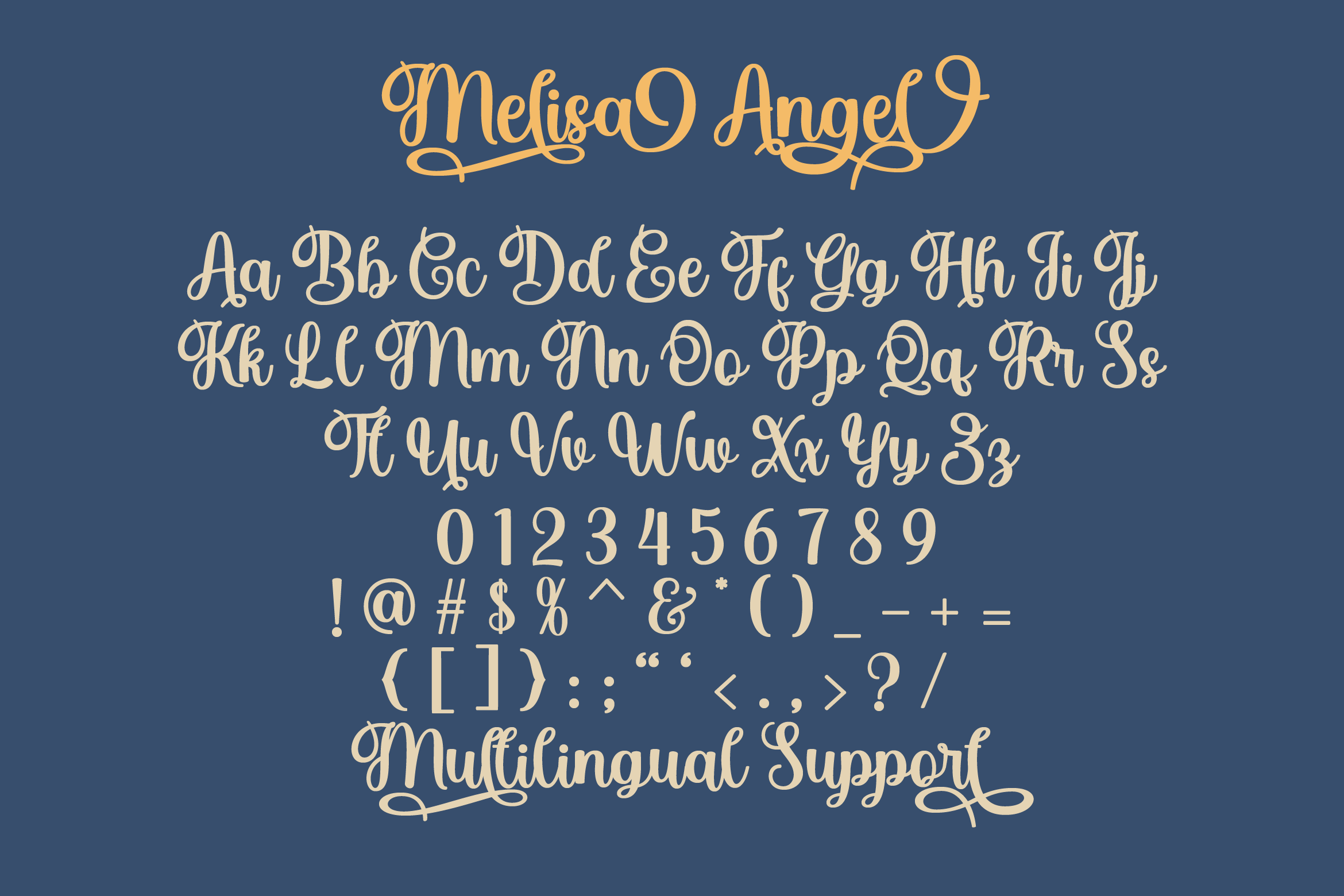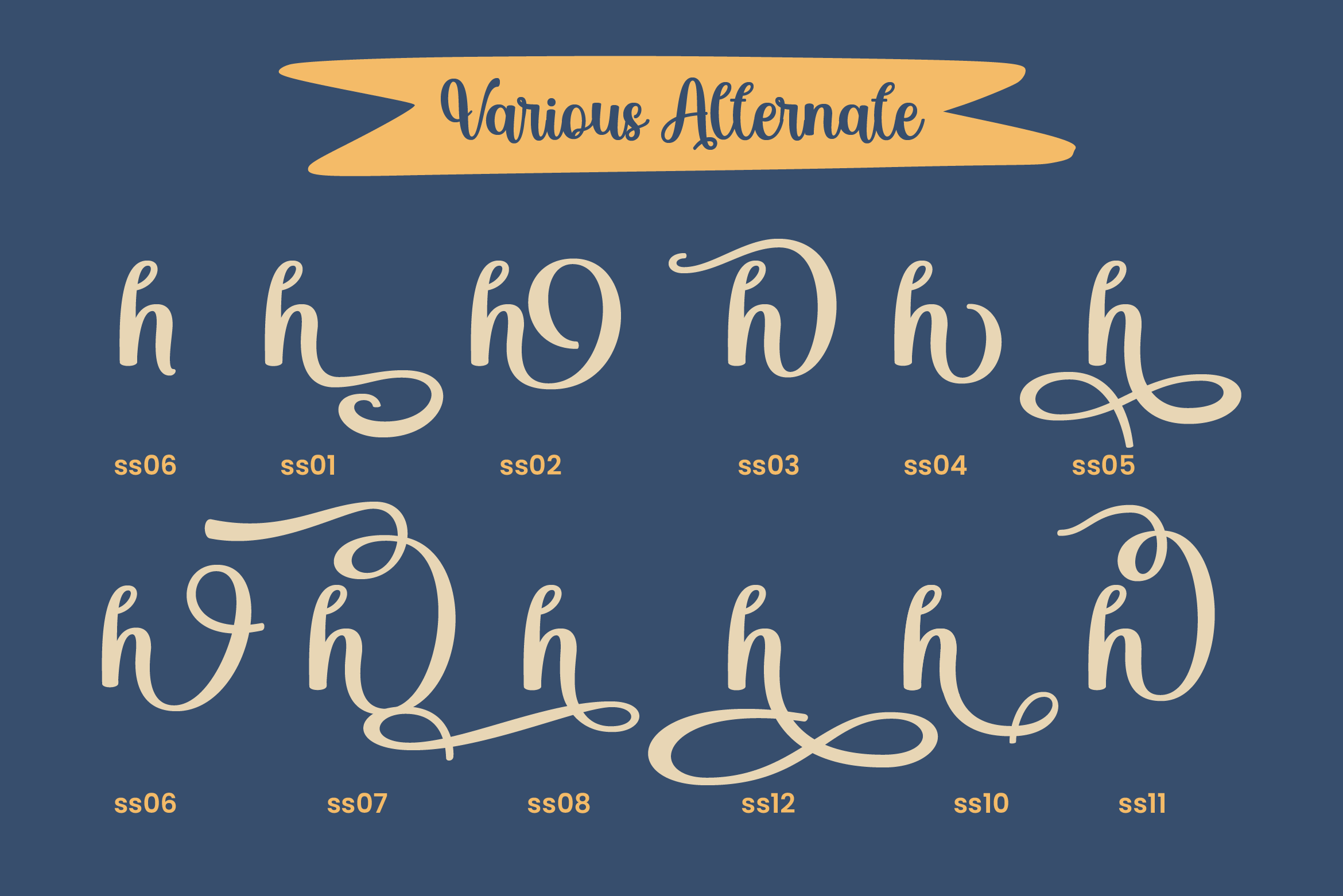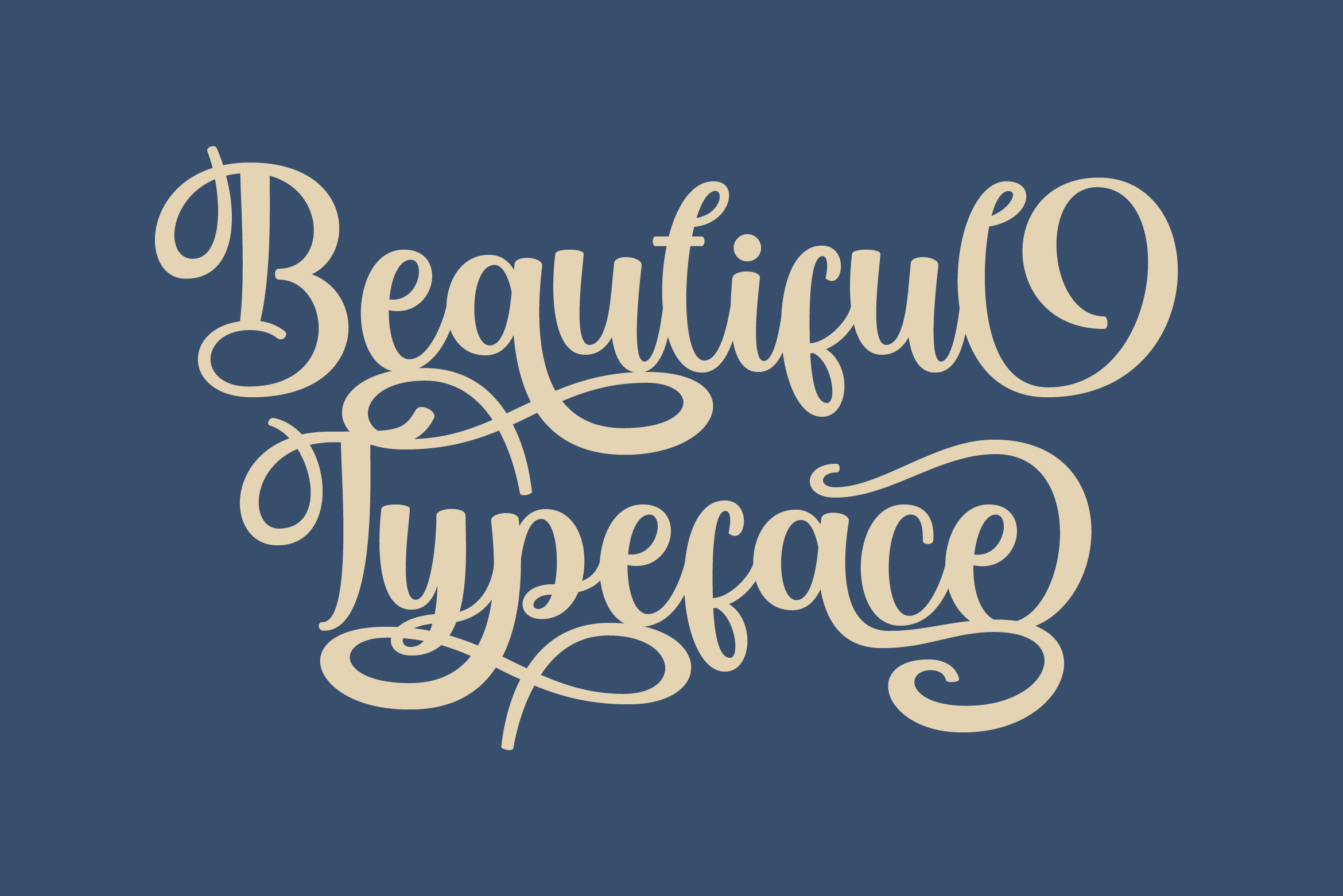
Melisa Angel Font
Melisa Angel Script Font
It’s a fabulously fun yet elegant script font with tons of energy, allowing you to create beautiful hand-made typography in an instant. With extra bouncy curves & loops, Melisa Angel is guaranteed to make your text stand out – perfect for logos, printed quotes, invitations, cards, product packaging, headers, and whatever your imagination holds.